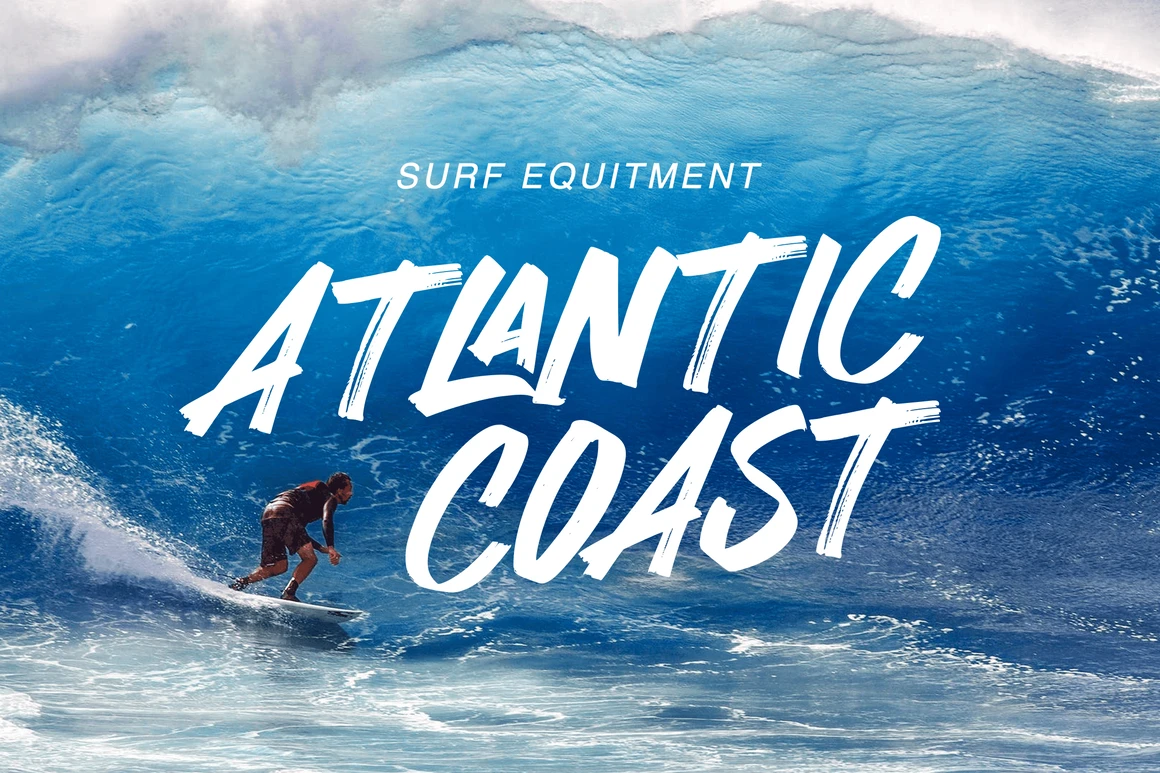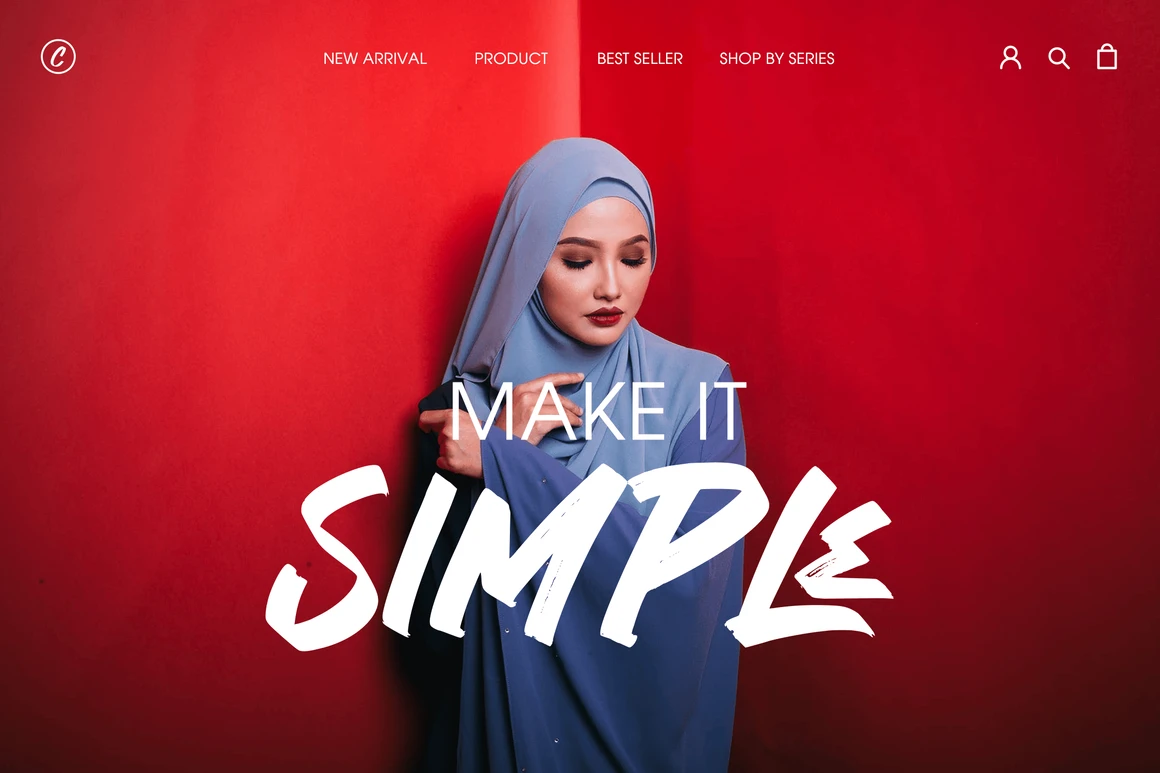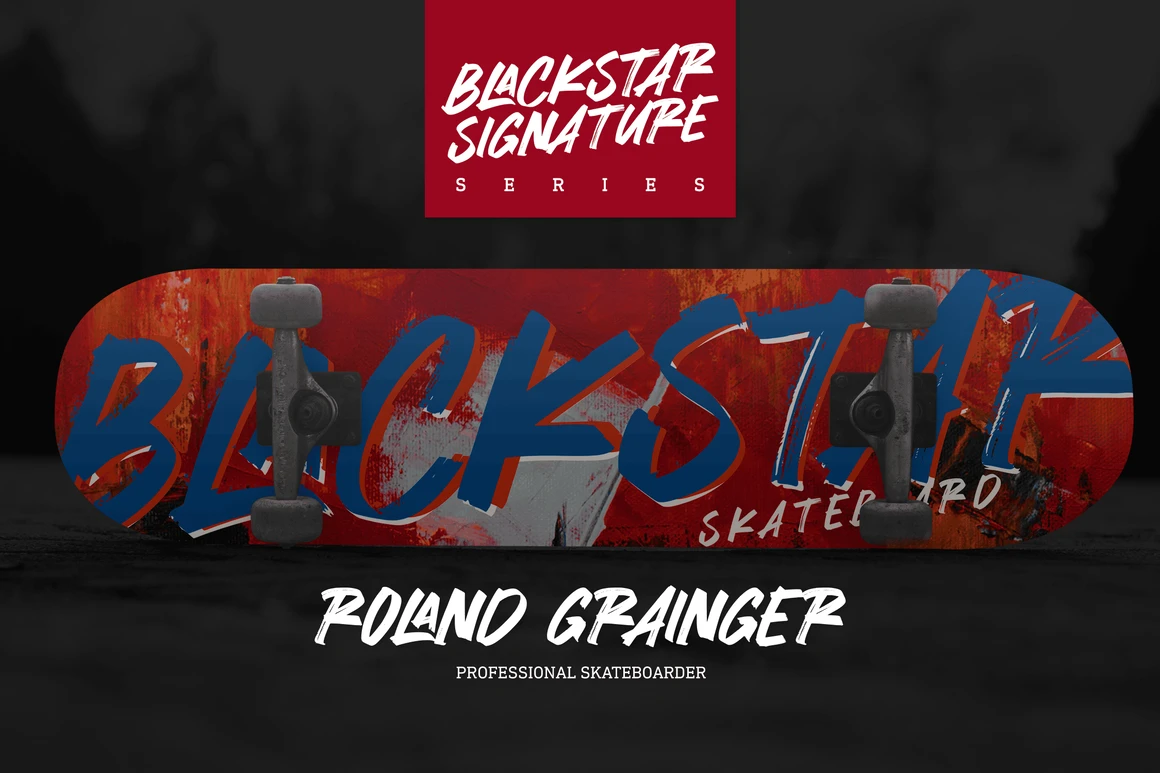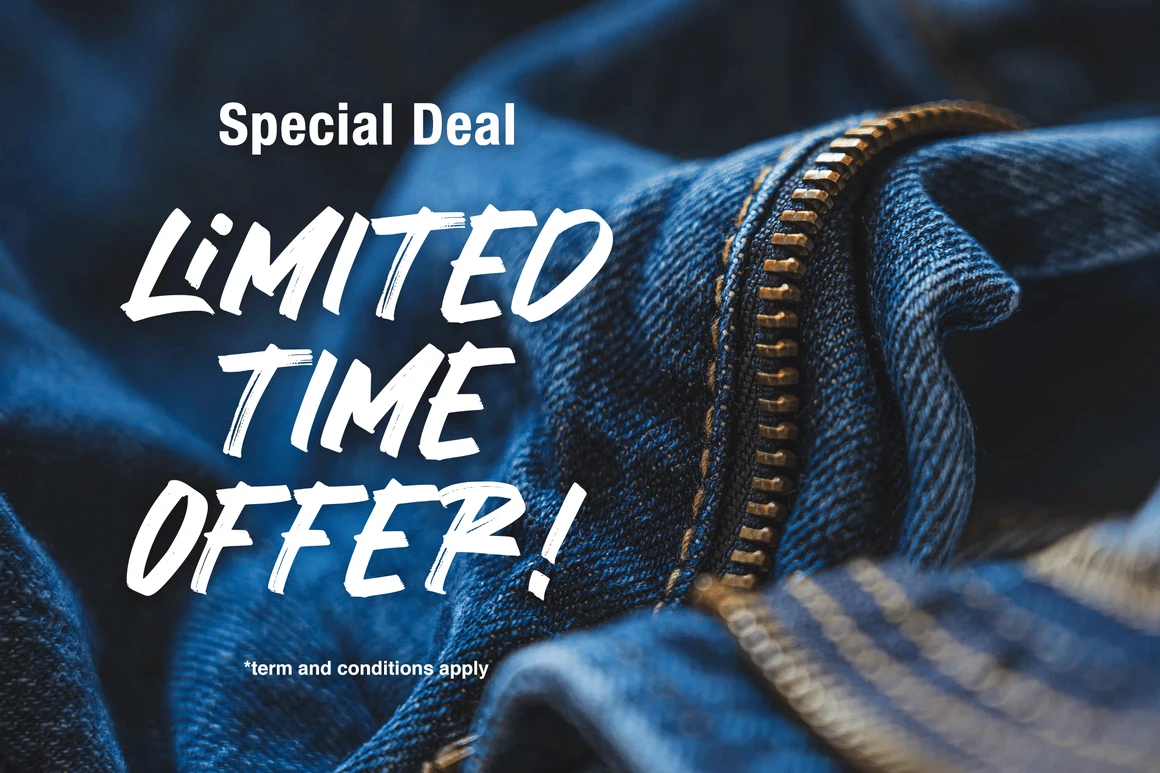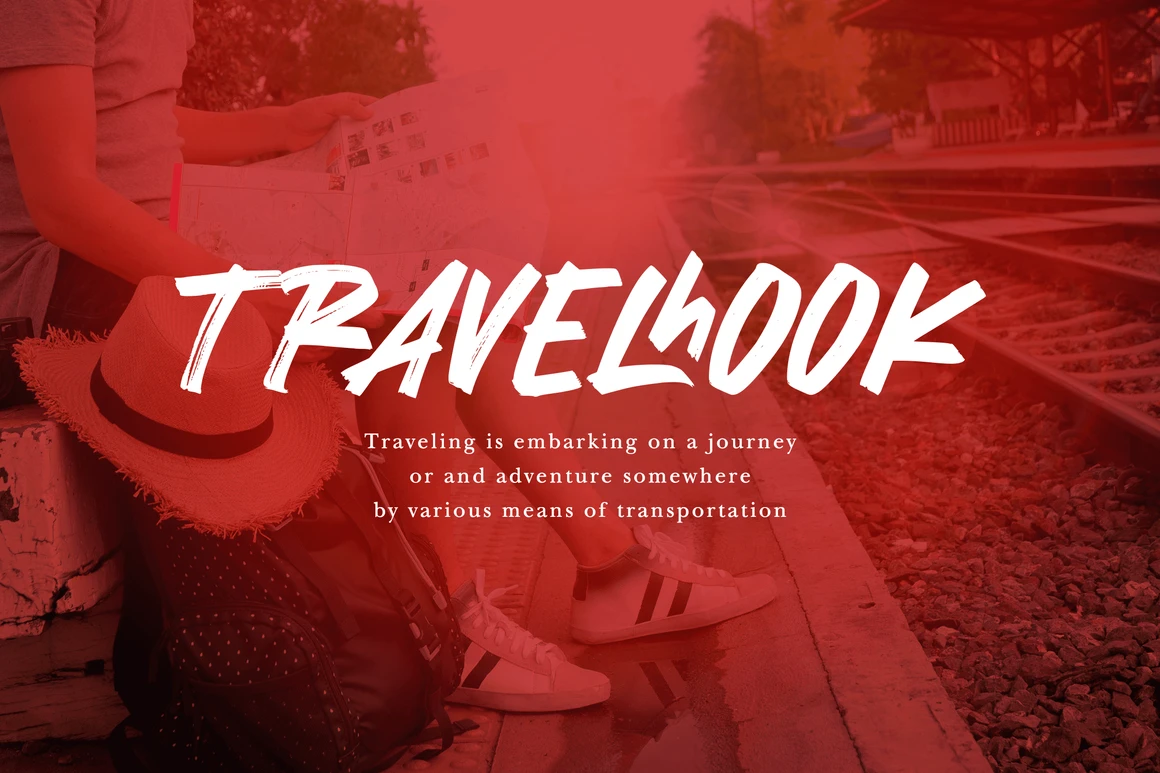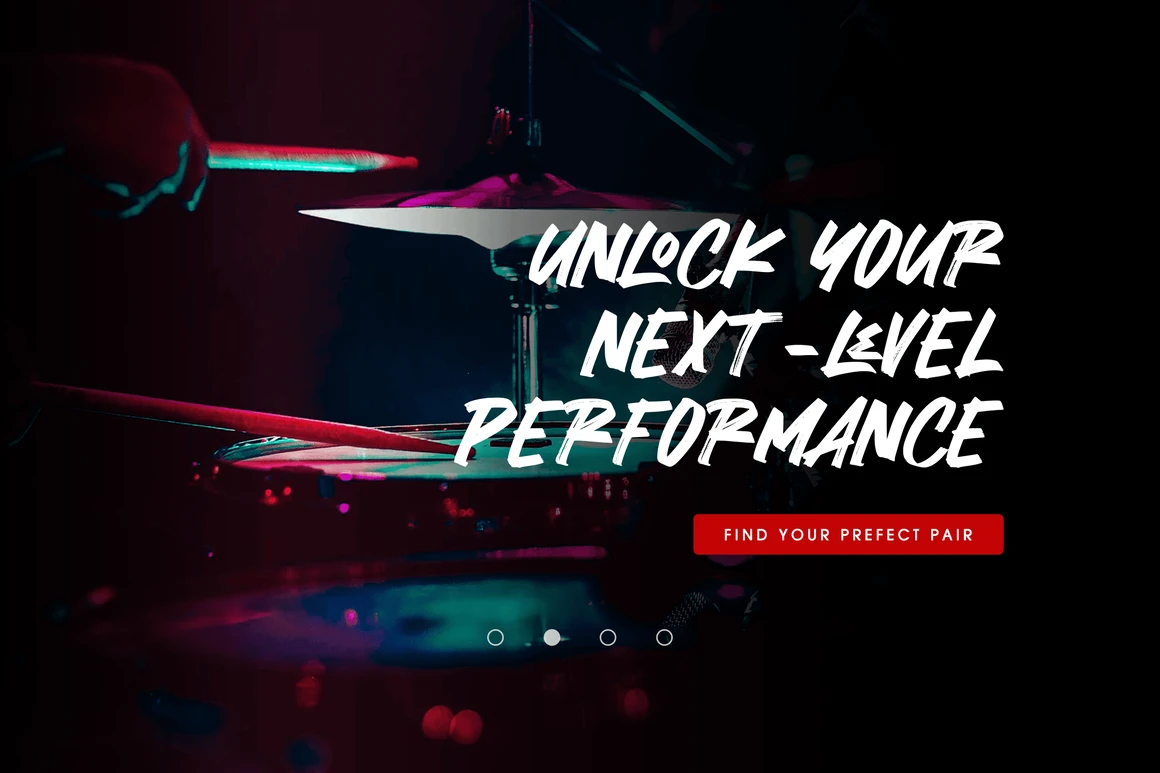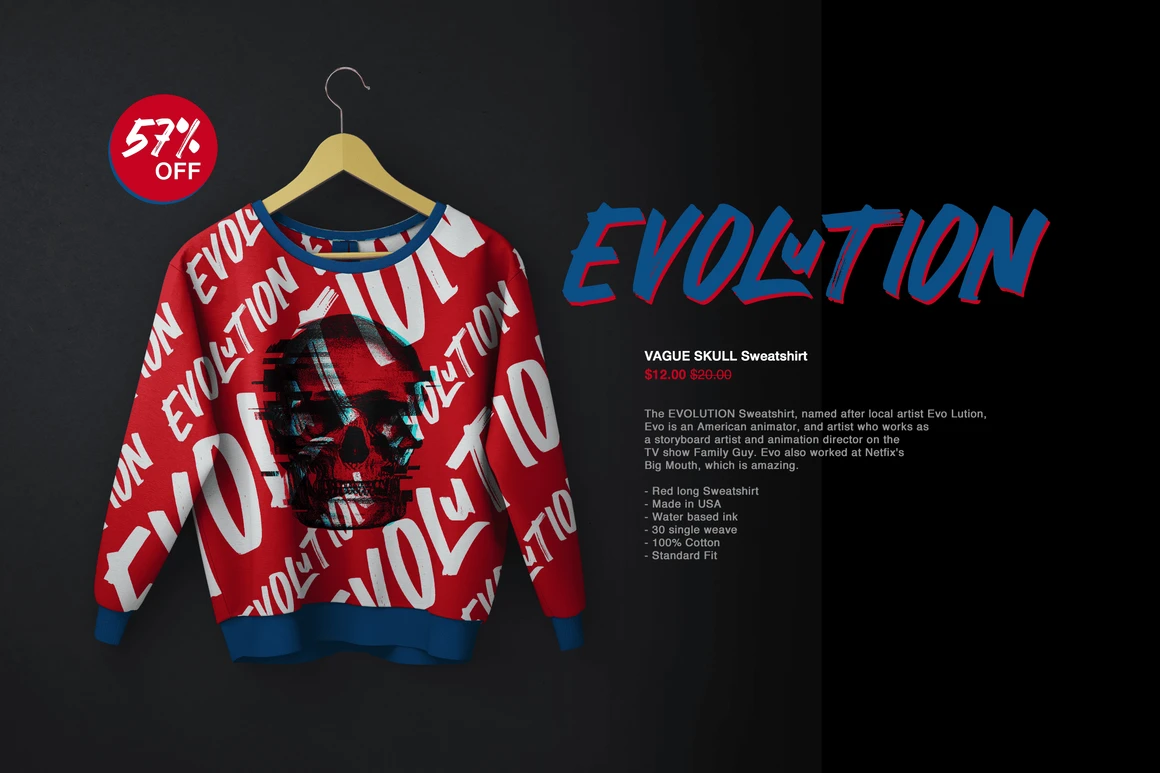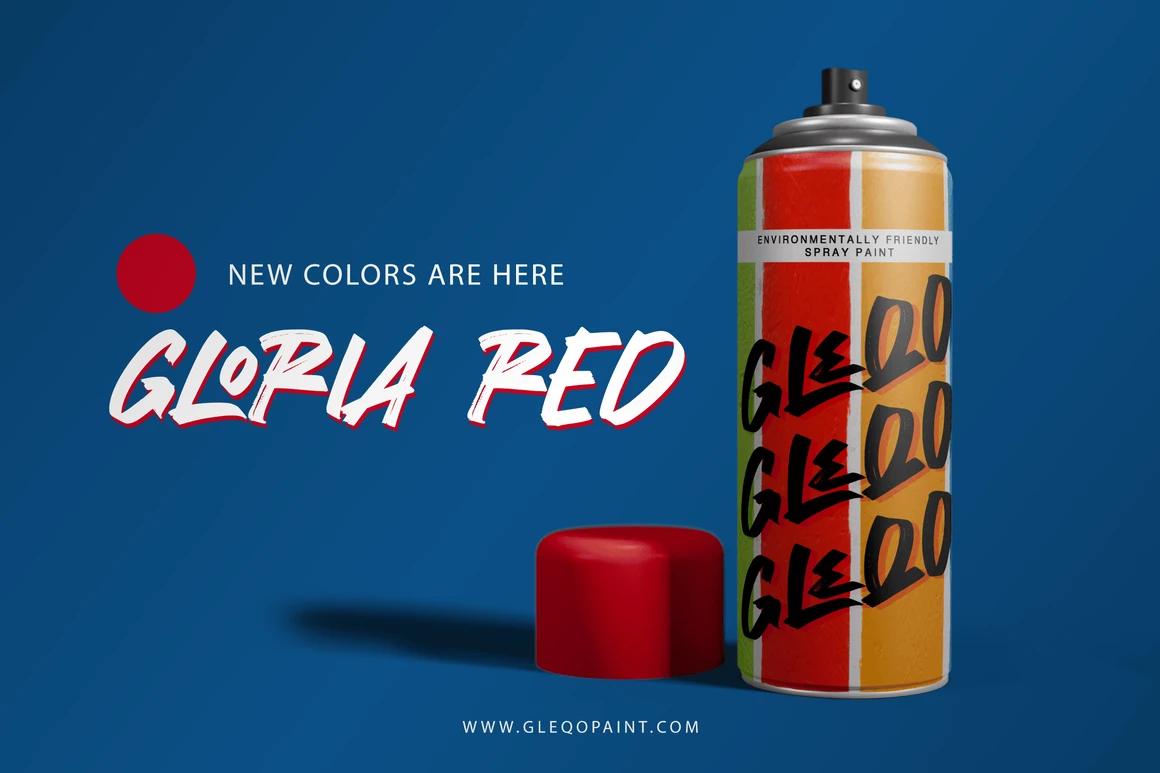
Melancoline is a brush font created with the original, handcrafted quick stroke technique! Consists of all capital letters, gives a very strong and confident impression. Melancoline also includes LA LE LI LO LU LH ligatures in it, for unique requirements for the word you want.
You can use Melancoline repeatedly for your design needs such as branding projects, web banner, quotes, homeware designs, product packaging, headlines, simply as a stylish text overlay to any background image, etc.